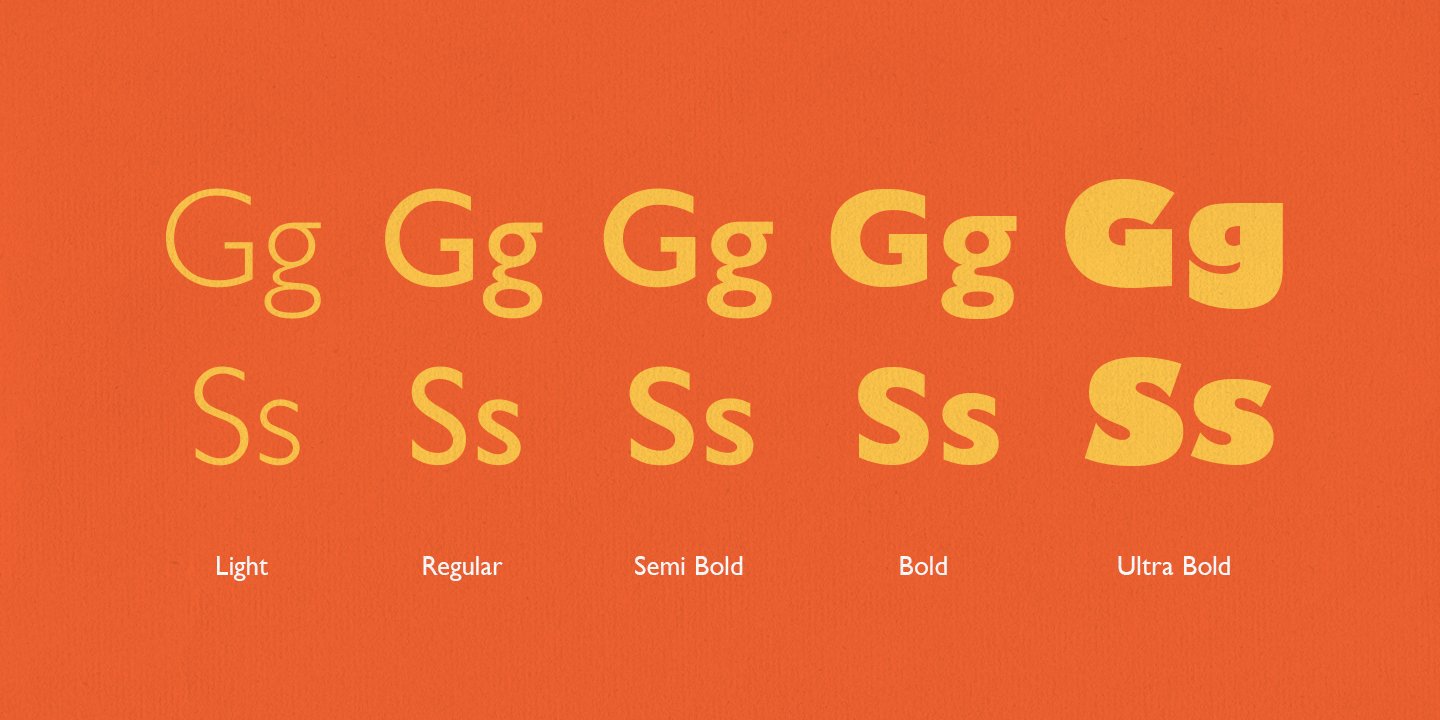
This classic humanist typeface is perfect for British institutions, traditional publishing, academic materials, BBC-style broadcasting, railway signage, government communications, heritage brands, educational institutions, and timeless logo design.
Gill Sans MT Font brings excitement to your design projects with its quintessentially British character and enduring elegance. This distinguished humanist sans-serif font features beautifully proportioned letterforms that combine classical Roman proportions with modern simplicity, making it perfect for organizations that value tradition and institutional authority. The font's refined geometry and exceptional legibility have made it a cornerstone of British design heritage.
The Gill Sans MT Font family includes light, regular, medium, bold, extra bold, and ultra bold weights, plus condensed variations and italics. This comprehensive range provides designers with complete typographic flexibility for creating authoritative communications that honor design tradition while meeting contemporary standards.
Establish institutional credibility with Gill Sans MT Font Free Download today. This heritage typeface combines British design excellence with universal appeal, making it indispensable for organizations seeking to communicate authority and reliability. Whether you're designing educational materials, creating government communications, or developing heritage brand identities, this font delivers distinguished results with its classical proportions and institutional gravitas.
The time-tested letterforms ensure consistent quality across all applications. Download Gill Sans MT Font now and embrace this foundational typography solution that has shaped British visual communication for generations with its uncompromising quality and enduring design principles.